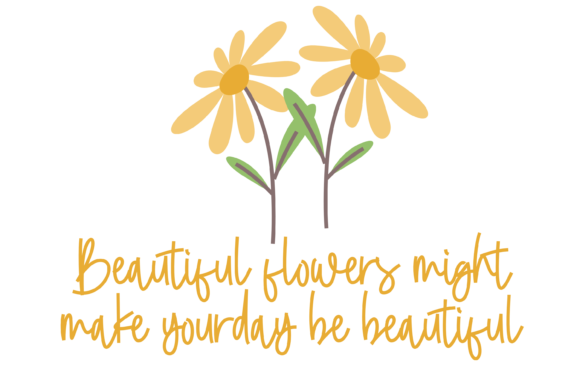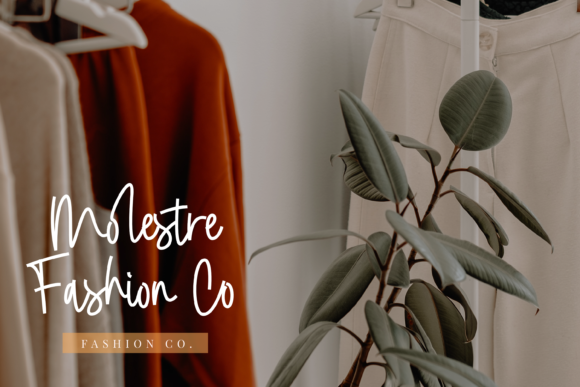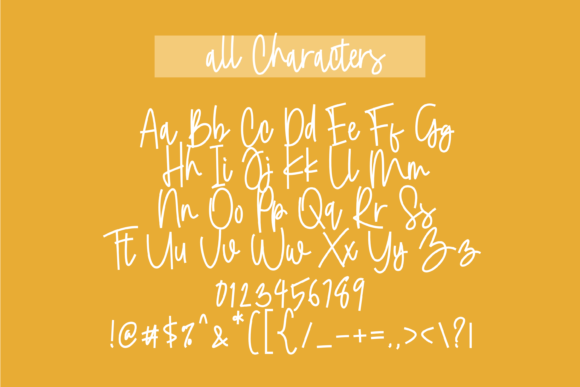
Introduction to Molet Raenak Font
As a designer, there’s nothing quite like the thrill of finding the perfect font to bring your creative vision to life. You’ve spent hours pouring over your design, tweaking every detail, and then – it hits you – the perfect font to tie everything together. For me, that font is often the Molet Raenak Font, a stunning handwritten typeface that elevates any project to new heights.
With its sleek, elegant lines and sophisticated character, Molet Raenak Font is the ultimate design resource for any high-quality creative project. Whether you’re working on a wedding invitation, a birthday card, or any other special occasion, this font is sure to make your design stand out. And the best part? It’s available for free download, making it an accessible and valuable addition to any designer’s toolkit.
Key Features of Molet Raenak Font
- High-quality, elegant script font suitable for creative projects and design resources.
- Unique characteristics include swashes, flourishes, and connecting strokes, adding a touch of sophistication to any design.
- Perfect for designers and artists working on creative projects, such as invitations, posters, and branding materials.
Honest Review: Molet Raenak Font
I recently had the chance to experiment with the Molet Raenak Font, and I must say it’s been an interesting experience. This font has a lot of potential for creative projects that require a unique and elegant touch. The high quality of the font is immediately apparent, making it a great addition to any design resource.
One of the things that works well with the Molet Raenak Font is its transparent background. This allows for seamless integration with any design element, making it perfect for projects where you need a font that can blend in. The font also comes in a free download, which is always a bonus for designers on a budget.
- ✨ Unique and elegant design that’s perfect for creative projects
- ✨ High quality font that’s great for design resource
- ✨ Transparent background for seamless integration
However, there are a few limitations to the Molet Raenak Font. For one, the font is not suitable for projects that require a bold or dramatic font. Additionally, the font may not be as versatile as some other fonts on the market.
Overall, I would say that the Molet Raenak Font is a solid choice for designers who are looking for a unique and elegant font for their creative projects. While it may have some limitations, its high quality and transparent background make it a valuable addition to any design resource.
- ⚠️ Not suitable for projects that require a bold or dramatic font
- ⚠️ May not be as versatile as some other fonts on the market
Tips for Getting the Most Out of Molet Raenak Font
Some tips for getting the most out of Molet Raenak Font include using it in combination with other design elements to create a unique and eye-catching design, experimenting with different font sizes and colors to create visual interest, and using it to create a consistent brand identity.
Molet Raenak Font can be used in a variety of creative projects, including logos, branding materials, presentations, and documents. It is particularly useful for creating a professional-looking design with a high-quality font that has a transparent background.